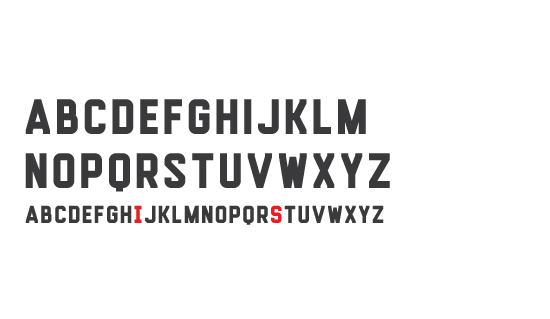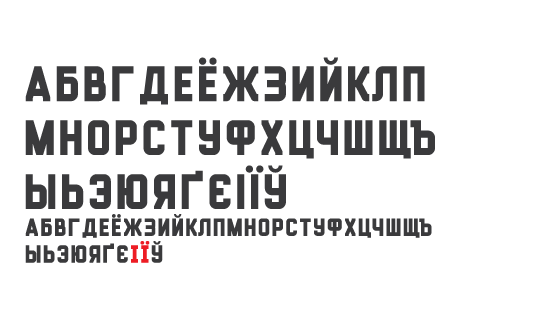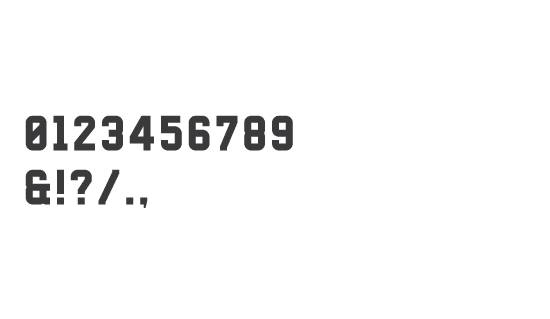
Free Font Of The Day #109 – Natasha Font
Natasha Font
The Font is a free display font, inspired by Russia with a modern look Letters I & S have alternate designs in lowercase. Designed by Kash Singh.